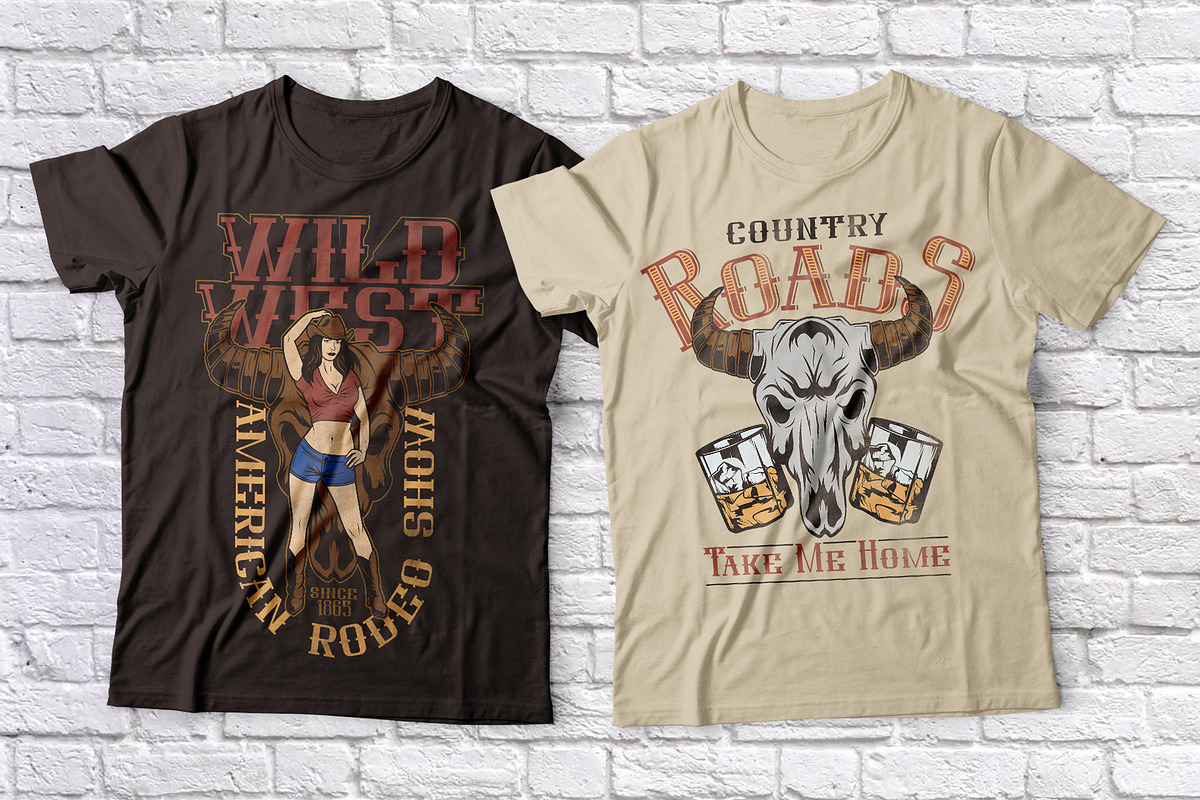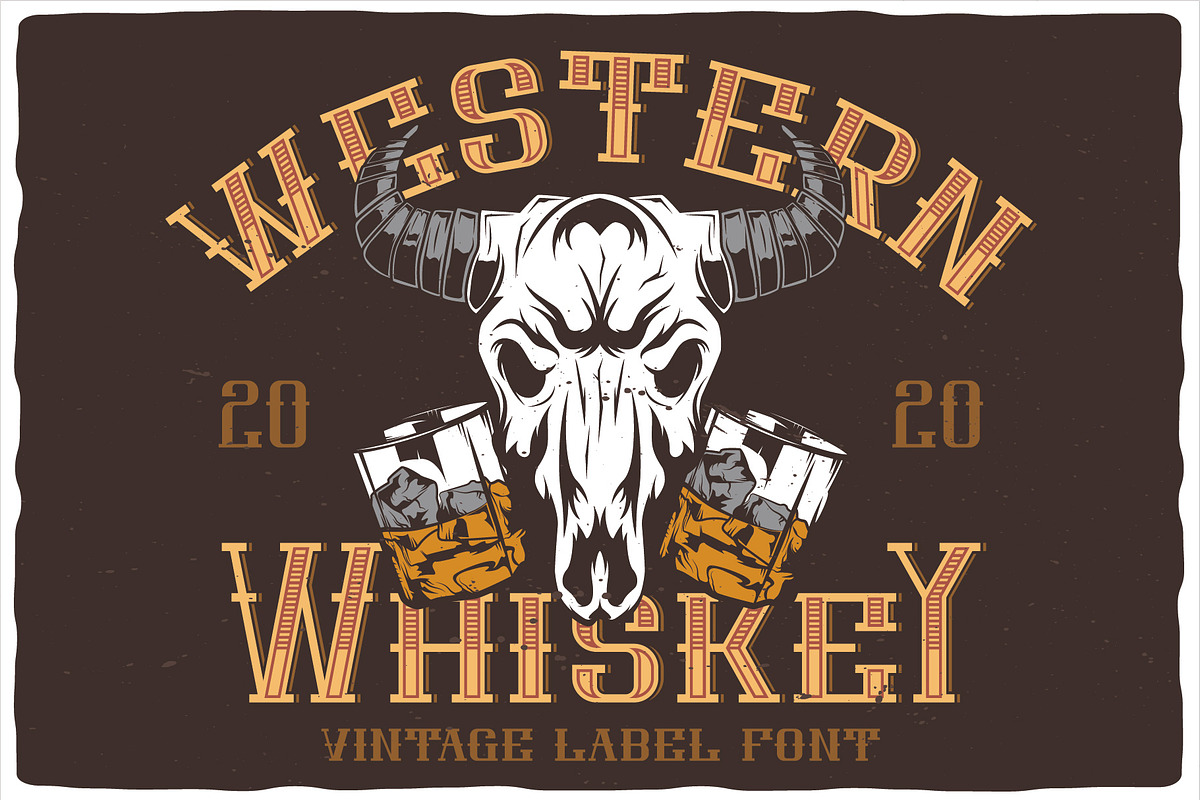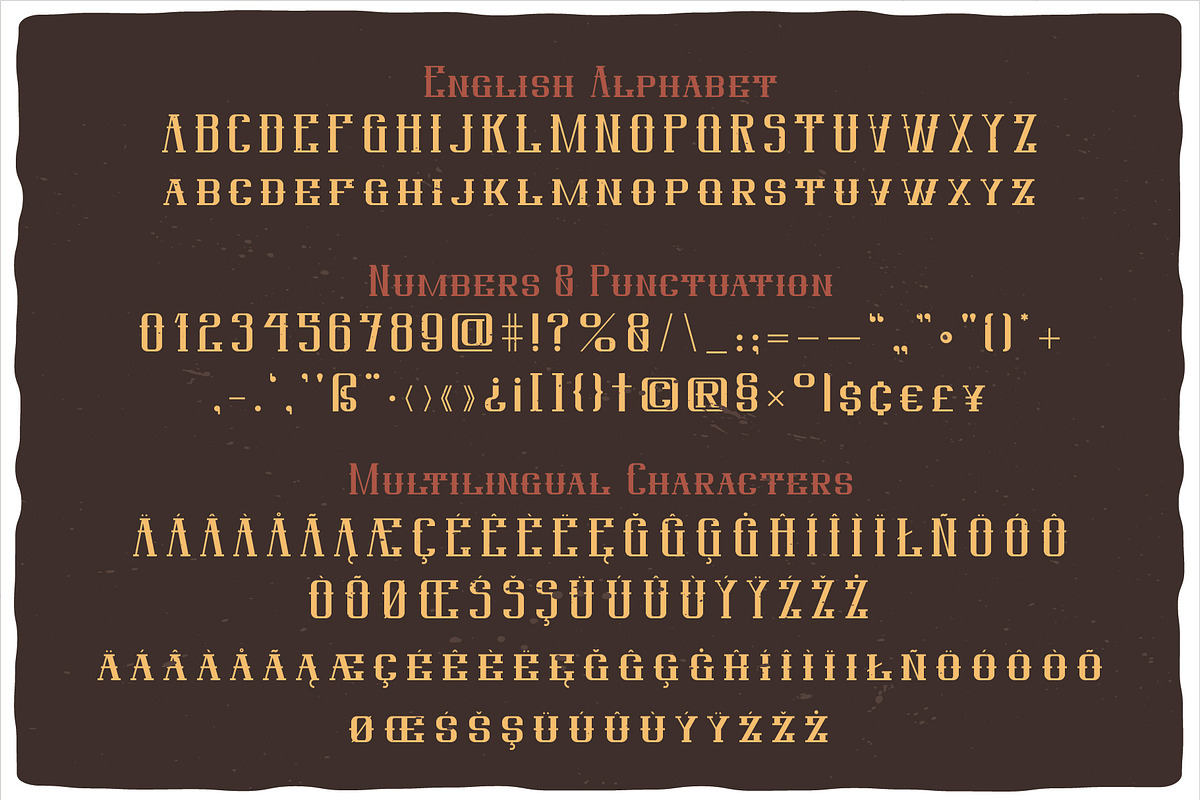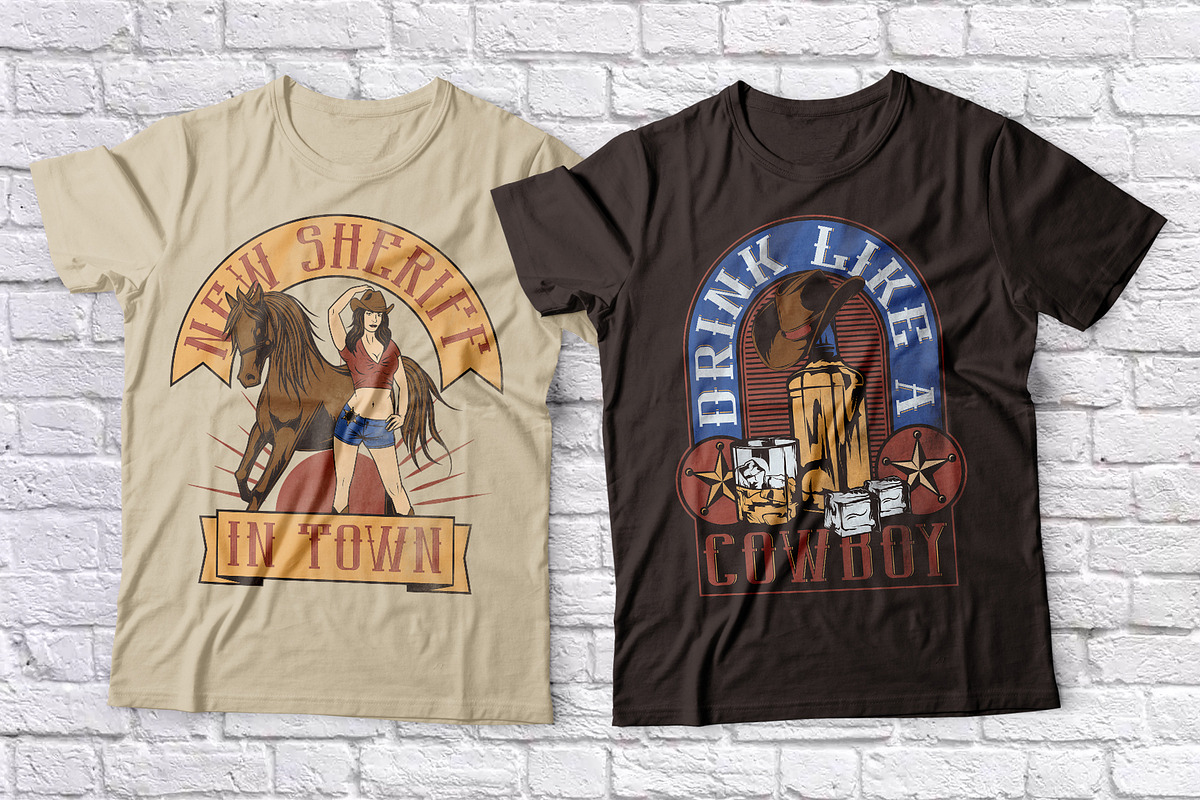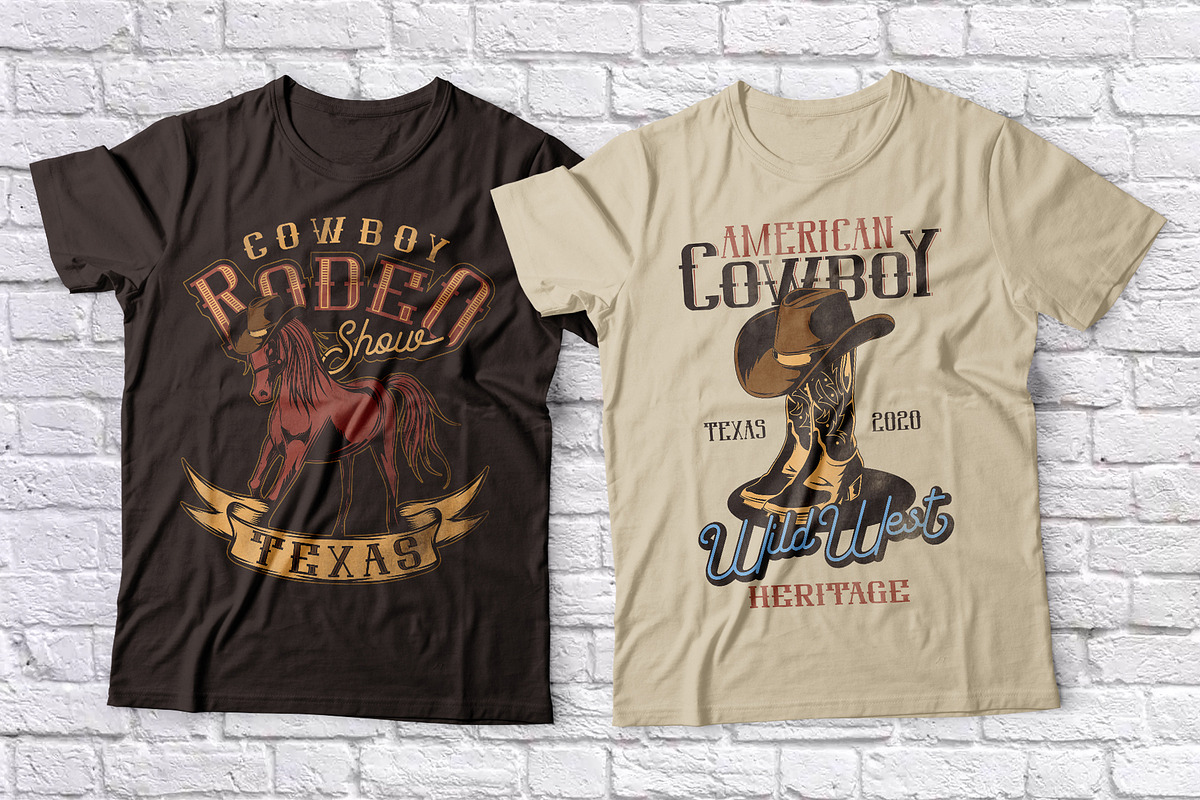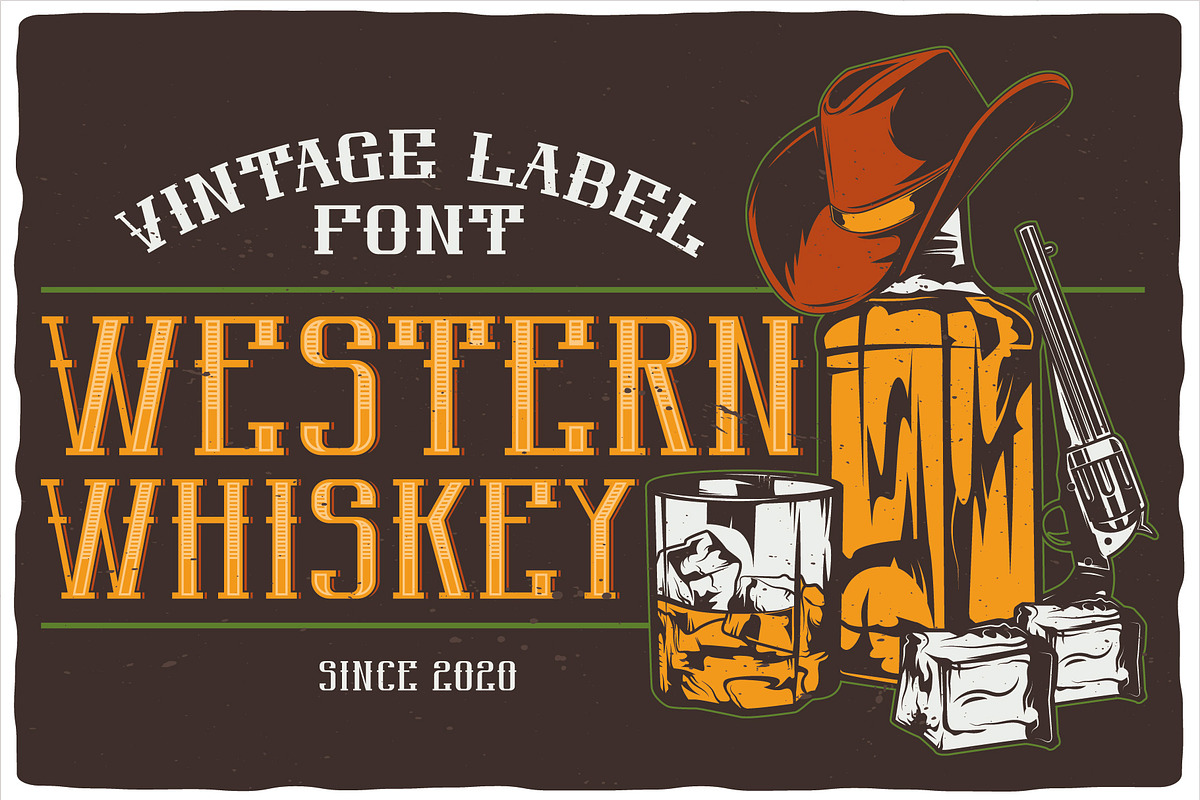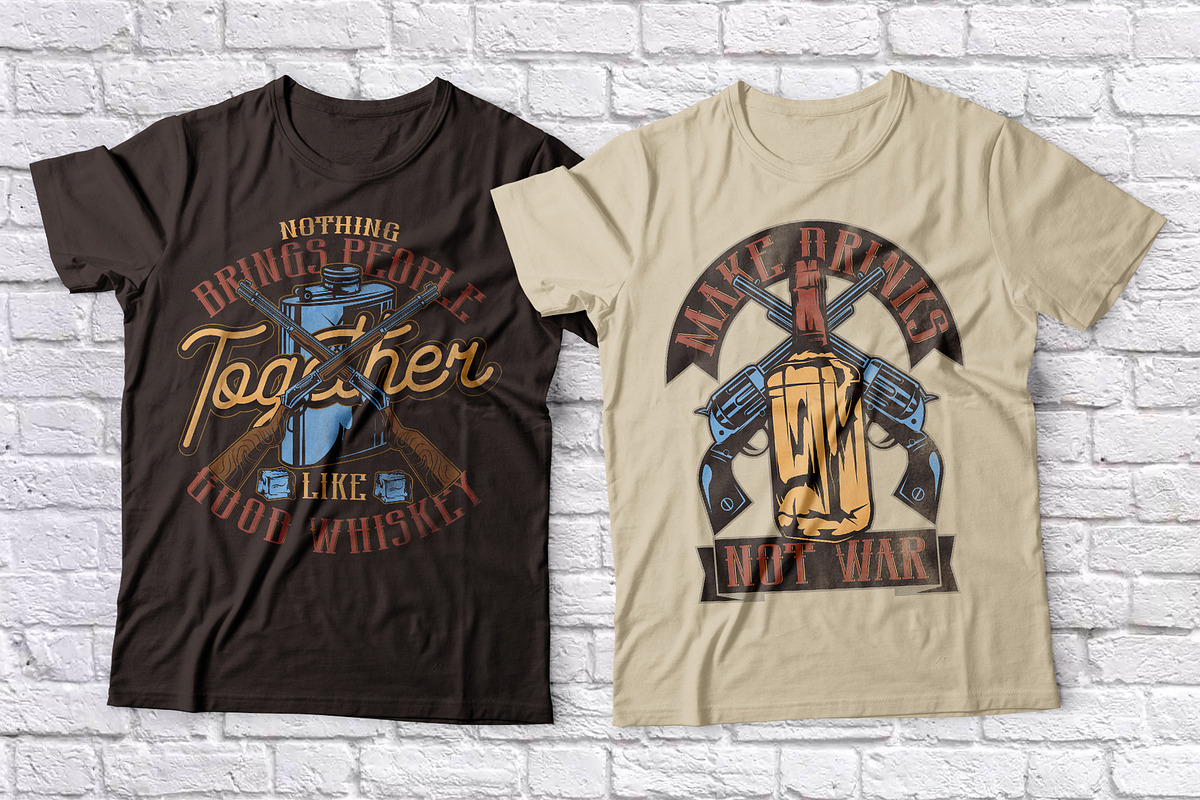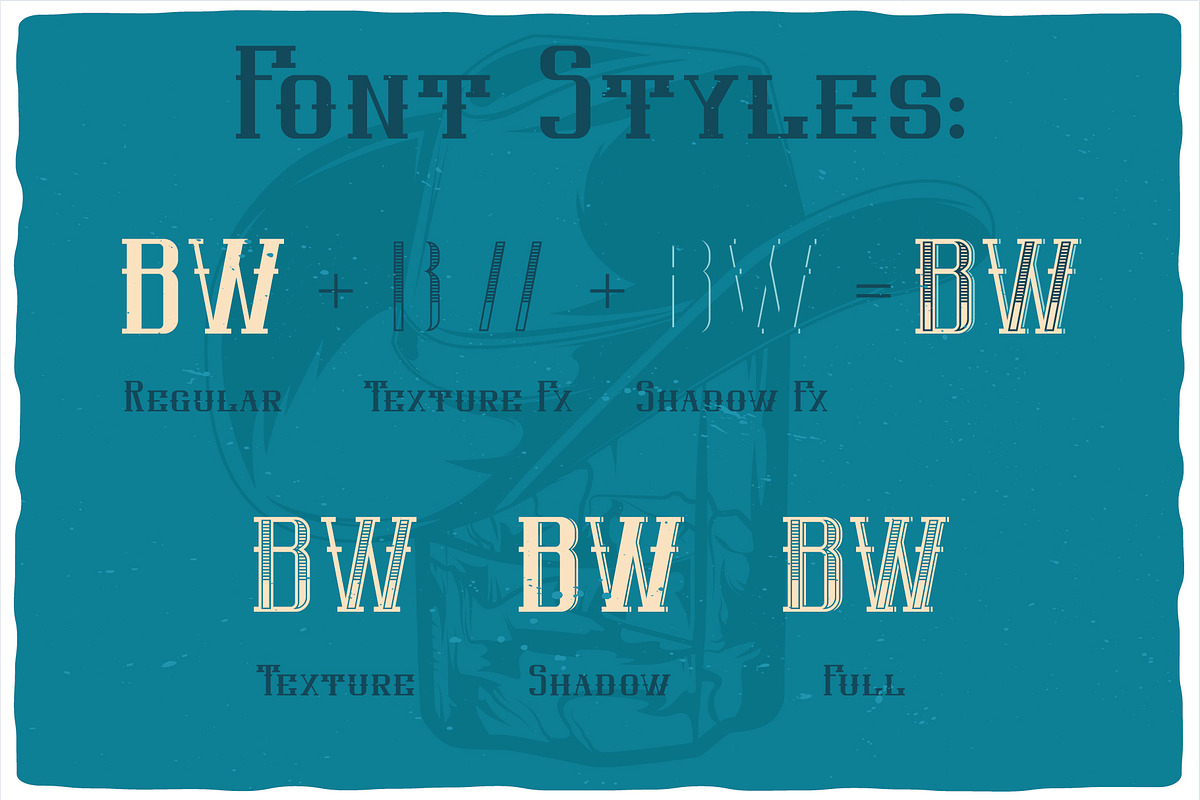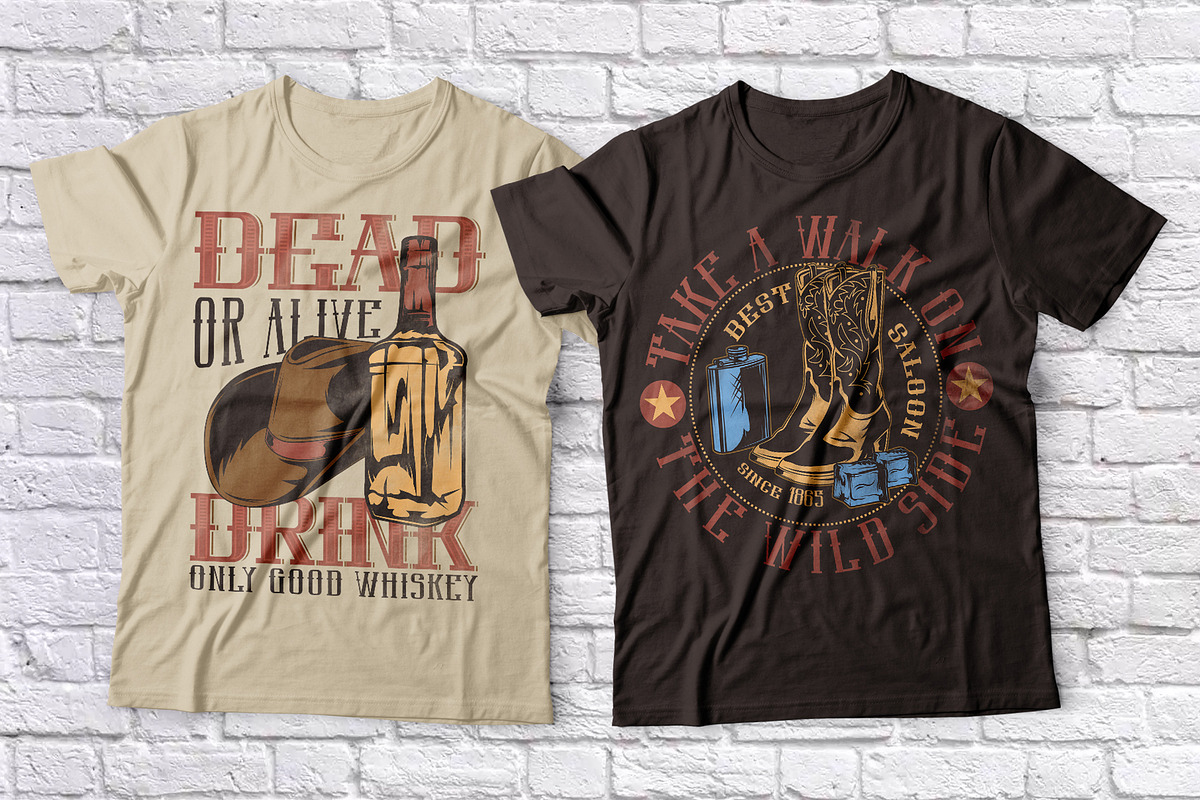
Western Whiskey
Introducing a vintage look label font named Western Whiskey. All available characters you can see at the screenshot. This font have 6 styles - Regular, Full, Shadow, Texture, Shadow FX and Texture FX. This font will good viewed on any retro design like poster, t-shirt, label, logo etc.
- A lot of additional characters and multilingual support